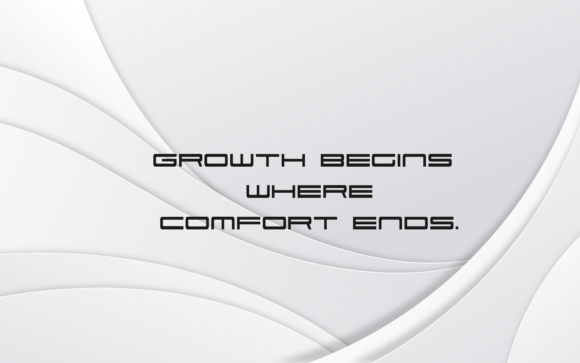
Unleash the Pulse of Precision: Discover the Apex Motion Font
In the world of design, typography plays a crucial role in conveying the essence of a brand or message. For those who crave to make a bold statement, the Apex Motion Font is here to revolutionize the way you present your ideas. Engineered for speed and styled for luxury, this font is not just a typeface – it’s velocity you can see.
The Essence of Apex Motion
Apex Motion is more than just a font; it’s an experience. Every curve, every line, and every detail has been meticulously crafted to capture the aerodynamic soul of performance design. This font is designed to evoke the sensation of speed, precision, and luxury, making it perfect for brands that want to convey a sense of high-performance and sophistication.
Designed for Speed, Styled for Luxury
The Apex Motion Font is built for those who want to make a statement. Its sleek and aerodynamic design makes it ideal for fast-paced brands, high-performance products, and bold headlines. Whether you’re designing a logo, a billboard, or a digital ad, this font will help your message roar off the grid.
Key Features of Apex Motion
- Engineered for Speed: The Apex Motion Font is designed to convey a sense of velocity and dynamism, making it perfect for brands that want to evoke a sense of speed and performance.
- Styled for Luxury: With its sleek and sophisticated design, this font is ideal for luxury brands that want to convey a sense of high-end quality and sophistication.
- Aerodynamic Soul: Every curve and line in the Apex Motion Font has been carefully crafted to capture the essence of aerodynamic design, making it perfect for brands that want to evoke a sense of movement and performance.
Use Cases for Apex Motion
The Apex Motion Font is versatile and can be used in a variety of design projects, including:
- Logo Design: Create a bold and memorable logo that conveys speed, performance, and luxury.
- Headlines and Titles: Use Apex Motion to create attention-grabbing headlines and titles that demand attention.
- Branding and Identity: Establish a strong brand identity with a font that conveys speed, precision, and luxury.
- Advertising and Marketing: Use Apex Motion to create bold and effective ads that grab attention and leave a lasting impression.
Why Choose Apex Motion?
In a world where typography plays a crucial role in design, the Apex Motion Font stands out from the rest. Here are just a few reasons why designers and crafters choose Apex Motion:
- Unique Design: The Apex Motion Font has a unique and distinctive design that sets it apart from other fonts.
- High-Quality: This font is engineered for high-performance and is designed to deliver exceptional results in a variety of design projects.
- Versatile: Apex Motion can be used in a variety of design projects, from logos and headlines to branding and advertising.
The Apex Motion Font is a game-changer for designers and crafters who want to make a bold statement. With its sleek and aerodynamic design, this font is perfect for brands that want to convey speed, precision, and luxury. Whether you’re designing a logo, a billboard, or a digital ad, Apex Motion is the perfect choice. Unleash the pulse of precision and let your message roar off the grid with the Apex Motion Font.